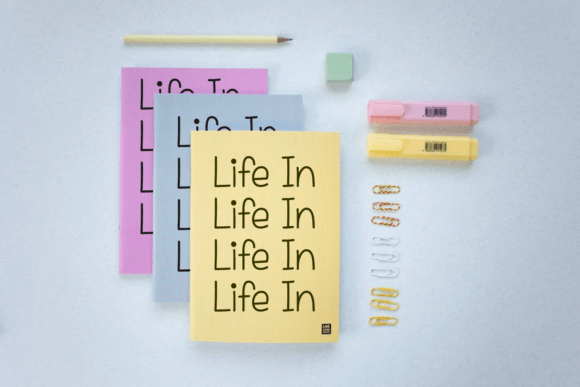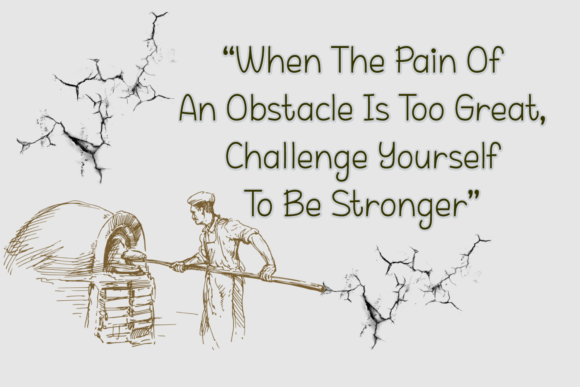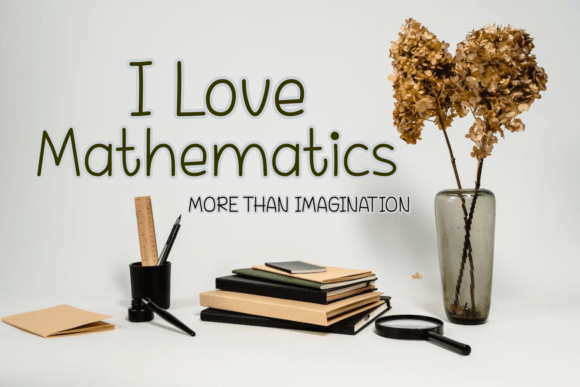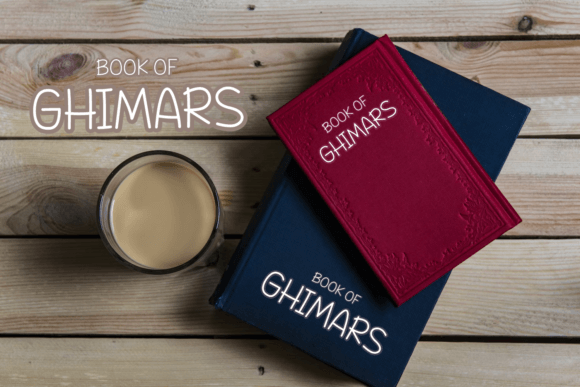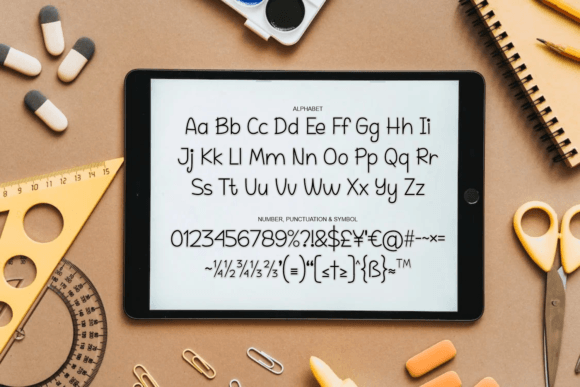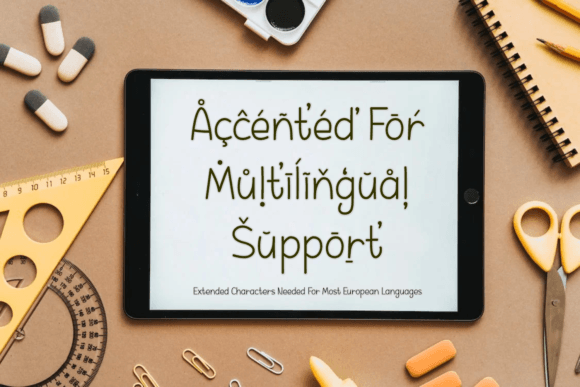
Introduction to Ghimars Font
Ghimars is a clean, relaxed and friendly handwritten font.
Suitable to a wide variety of designs due to its neat and simple style, this font has the potential to become your favorite go-to font, no matter the occasion .
Key Features of Ghimars Font
Why Choose Ghimars Font?
Ghimars Font offers exceptional quality and versatility, making it a valuable addition to your design toolkit. Whether you’re creating for personal projects or commercial use, Ghimars Font delivers professional results.